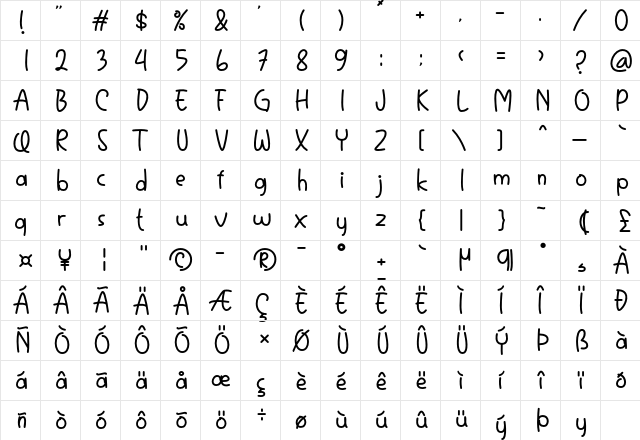
Tomodachy Regular
Design Context for Tomodachy Typeface
Tomodachy is a composed and adaptable typeface that performs quietly and consistently across a wide range of design contexts.